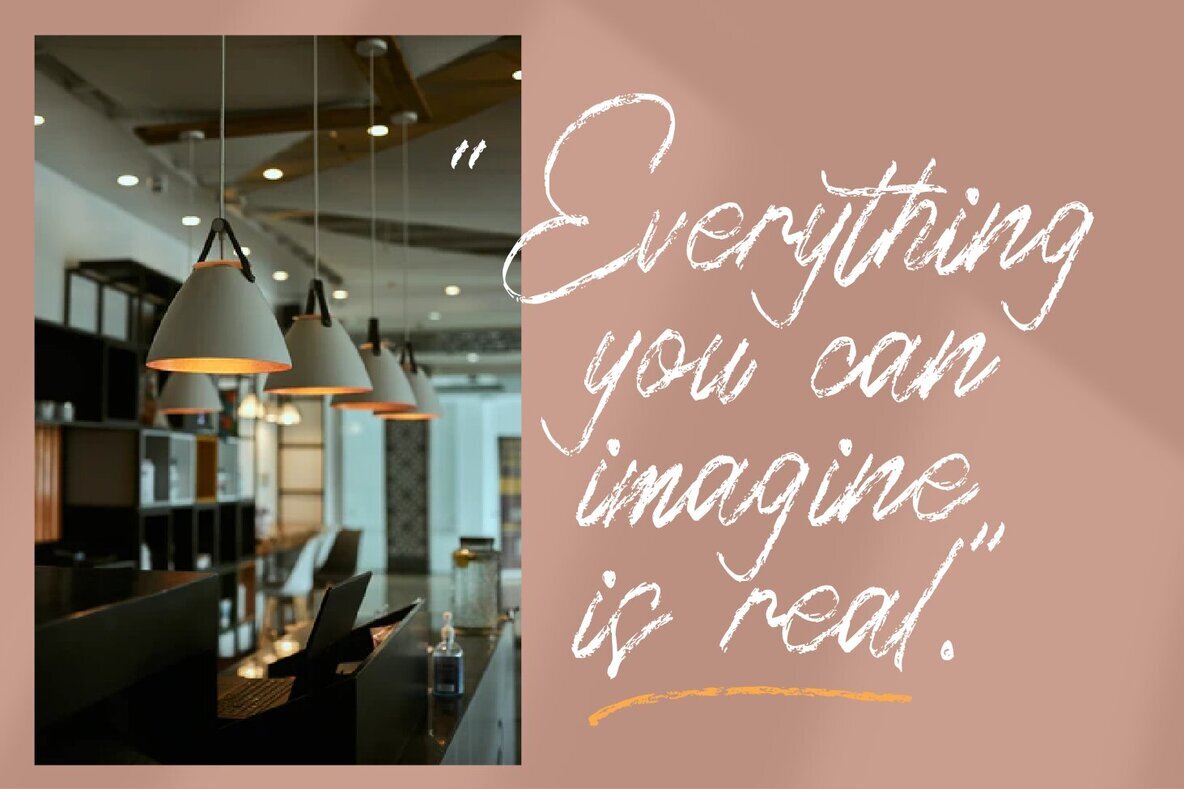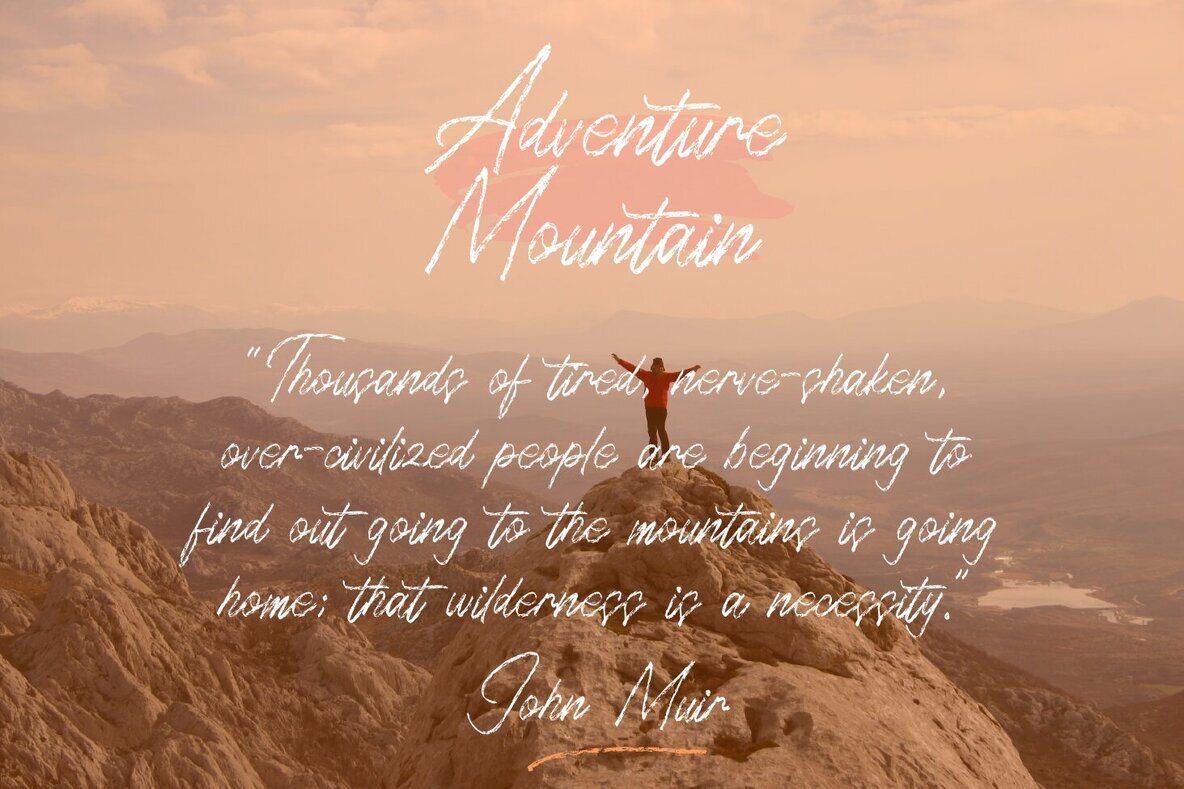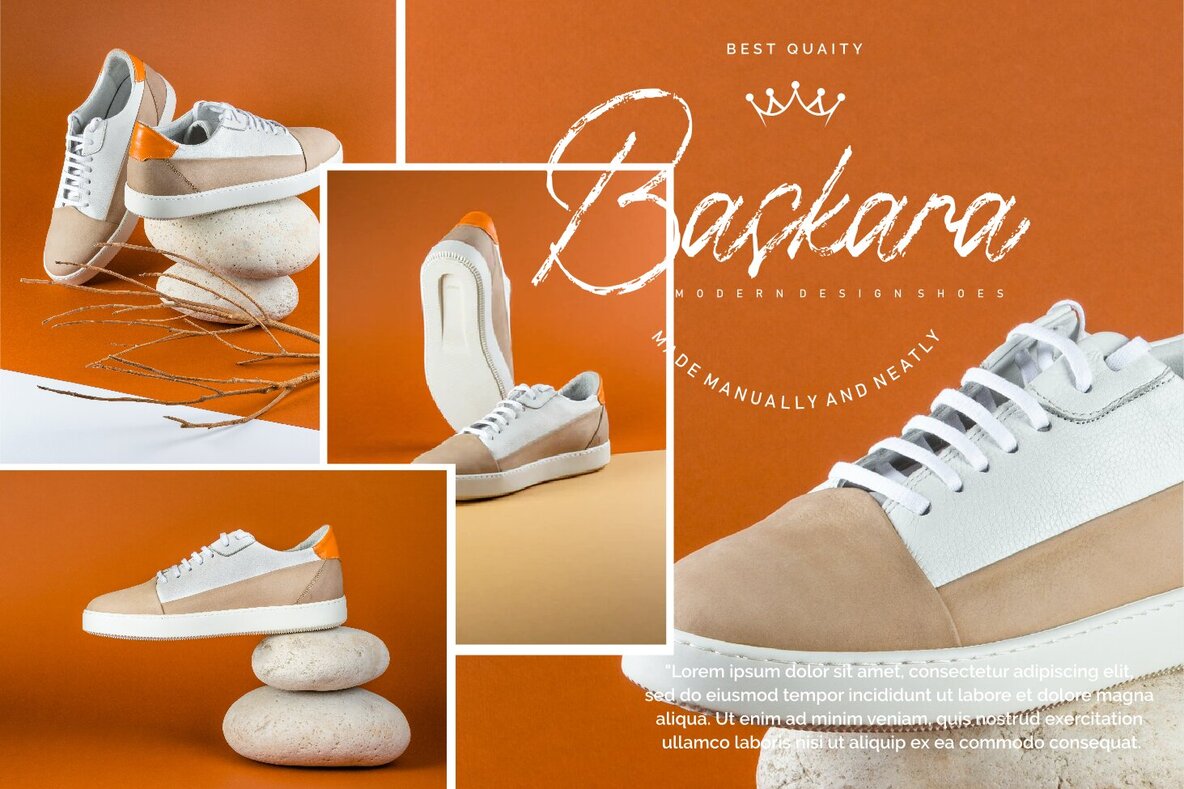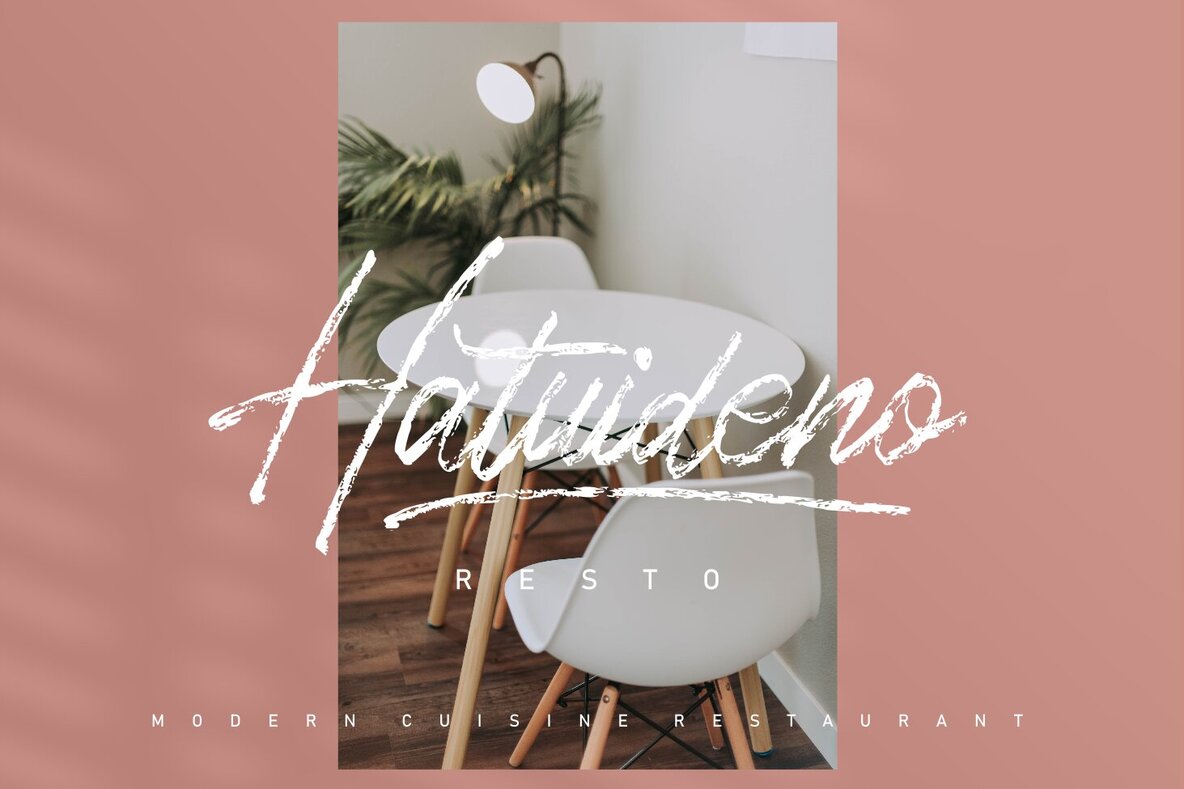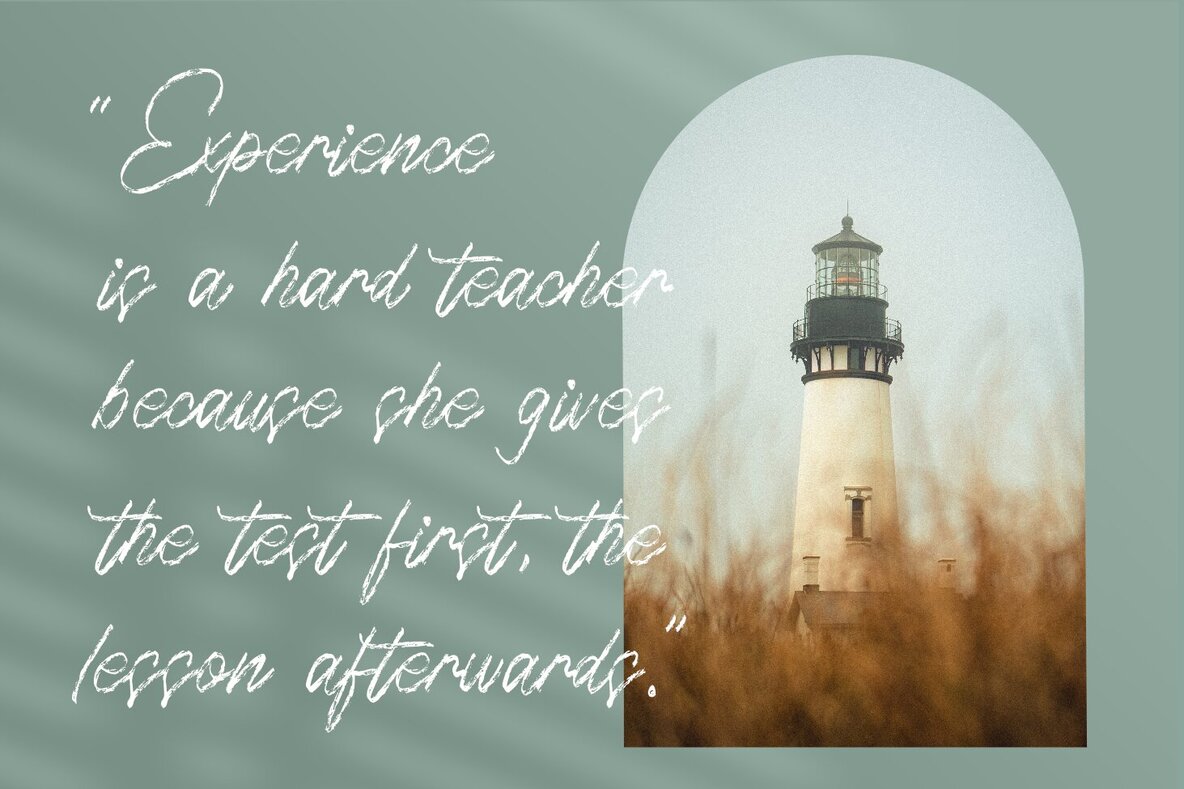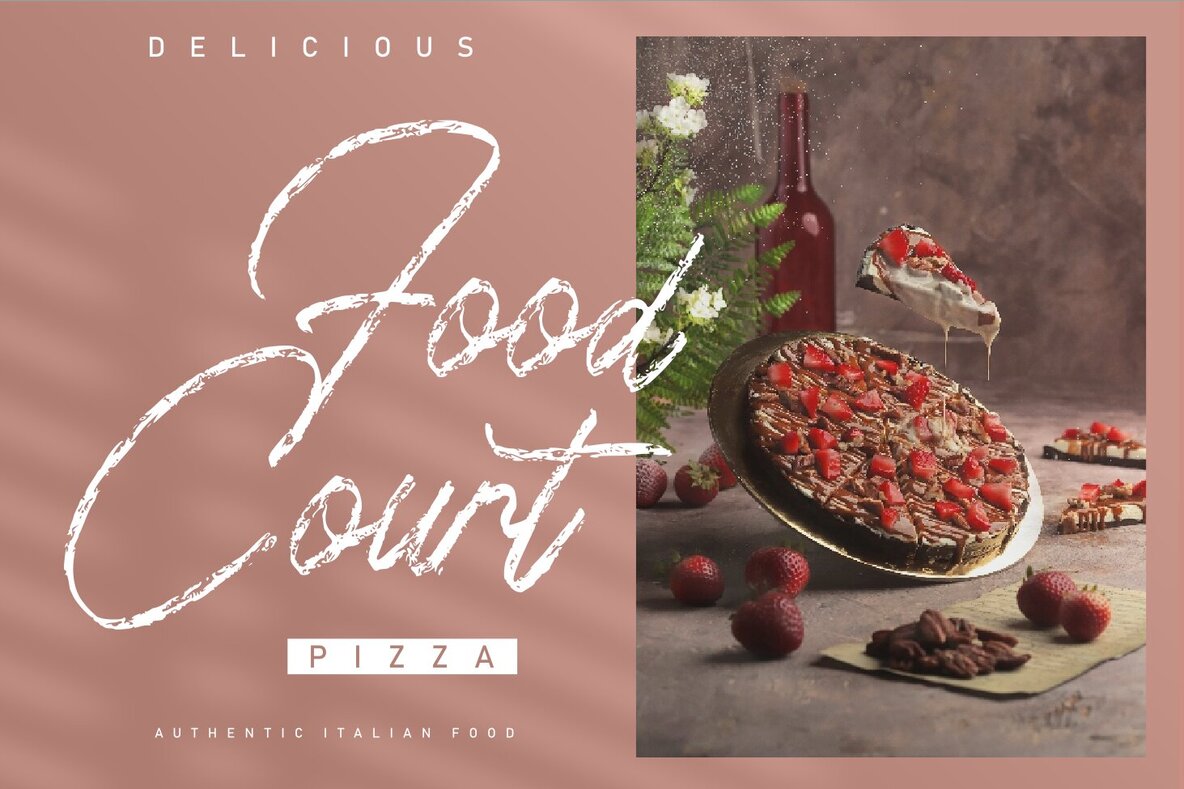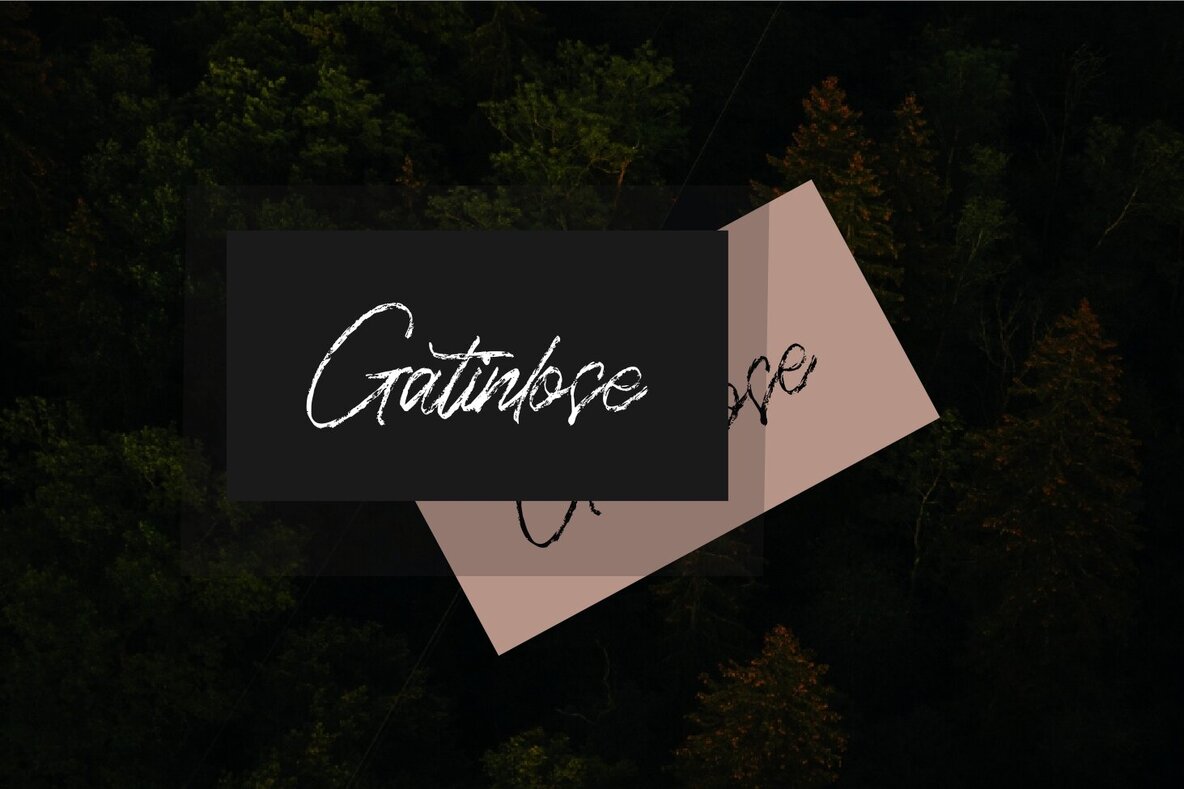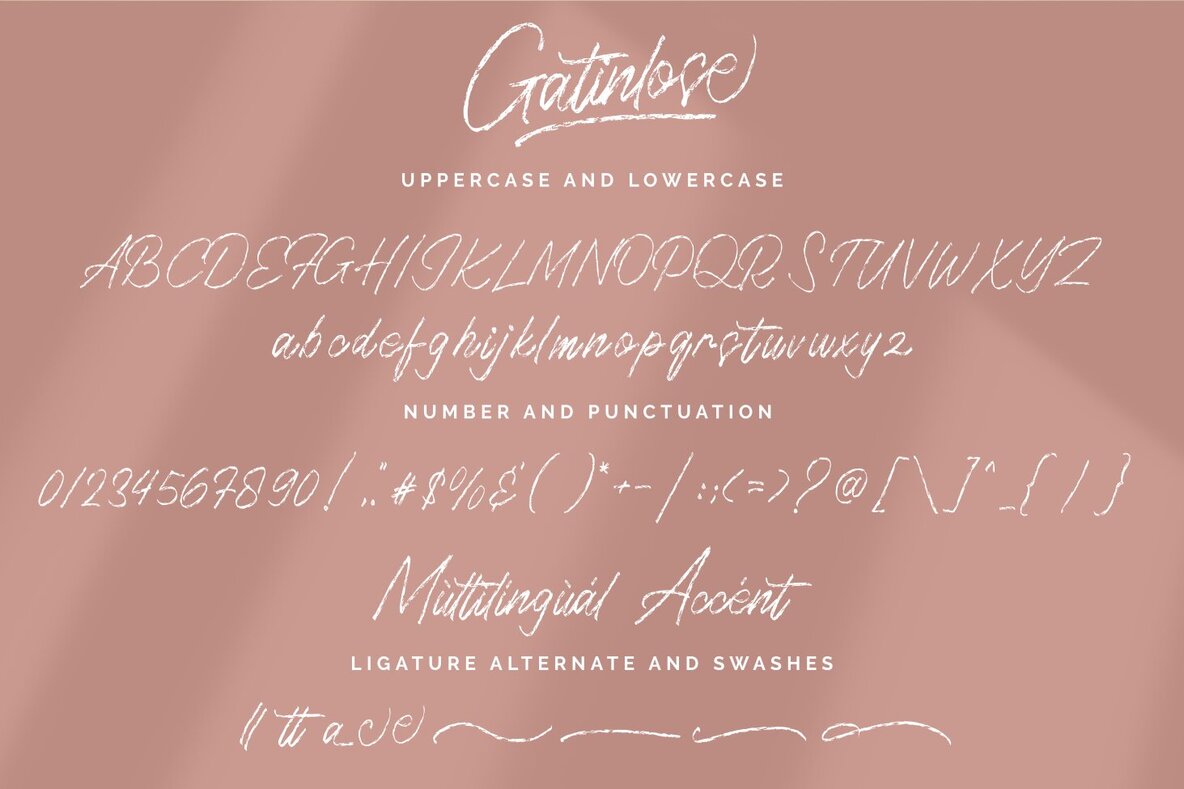
Gatinlose Font
Gatinlose Regular
Gatinlose, crafted by Zeenesia Studio, is a modern and textured script font that beautifully emulates natural calligraphy. Its elegant style elevates any project, making it an exceptional choice for designers seeking a sophisticated touch. Your feedback is welcome as you explore the artistic possibilities of Gatinlose.Gatinlose: A Modern Script with Calligraphic Elegance